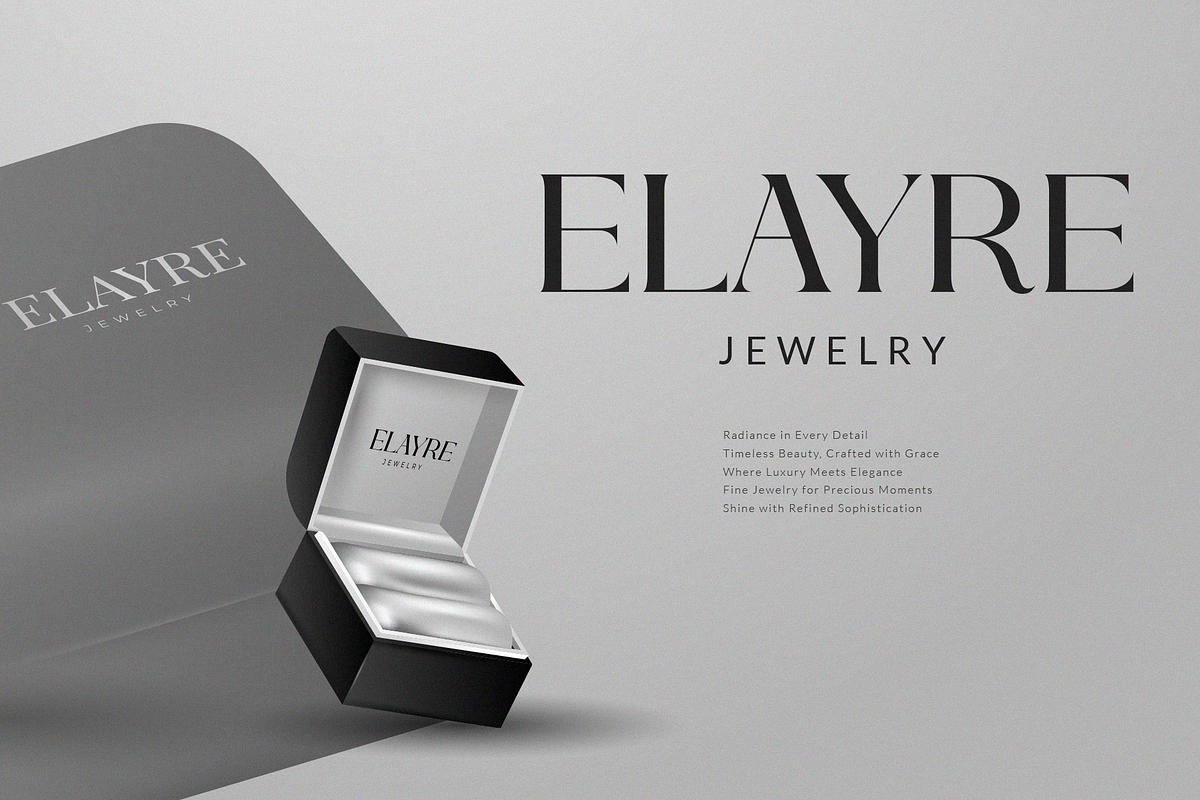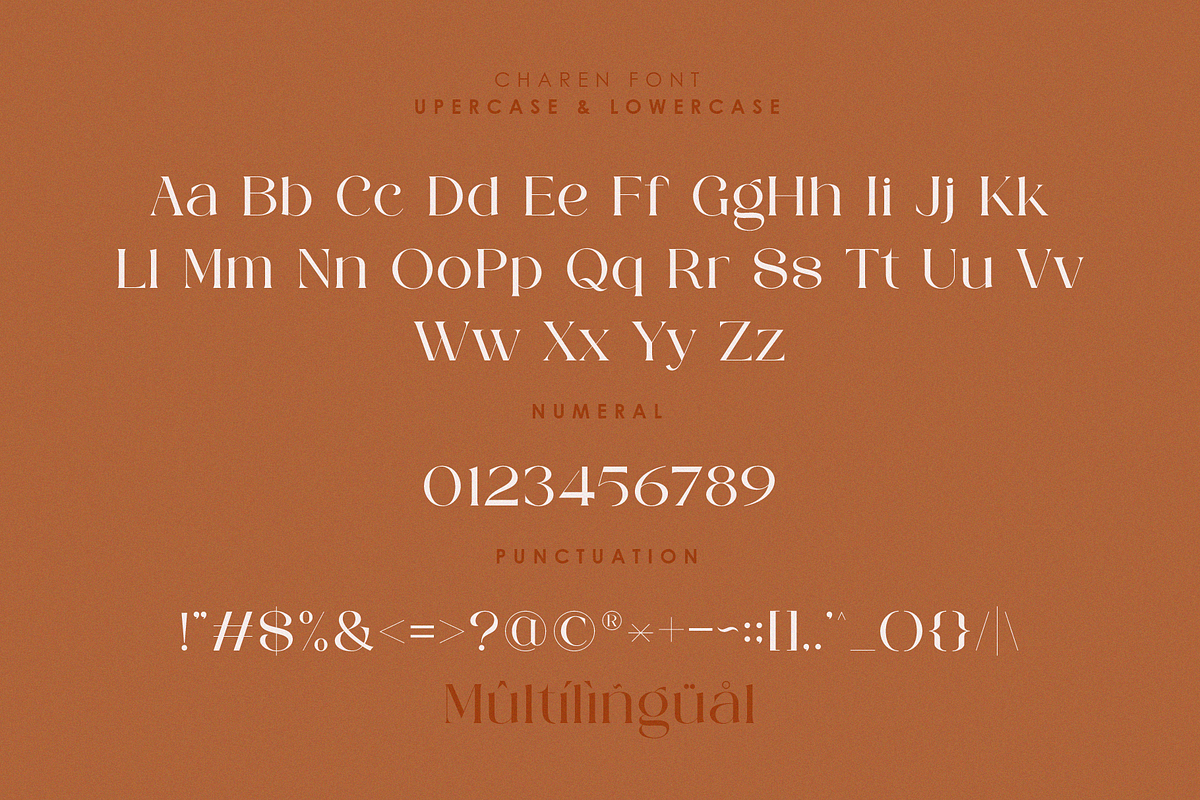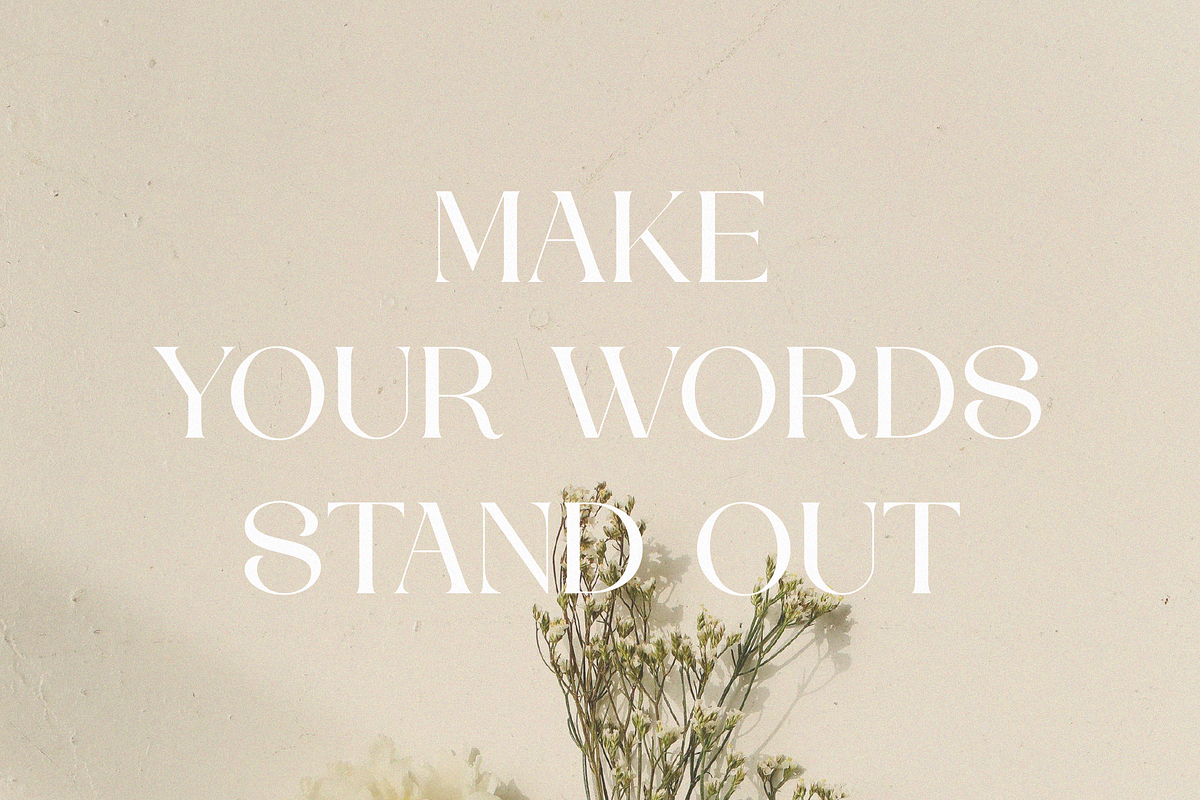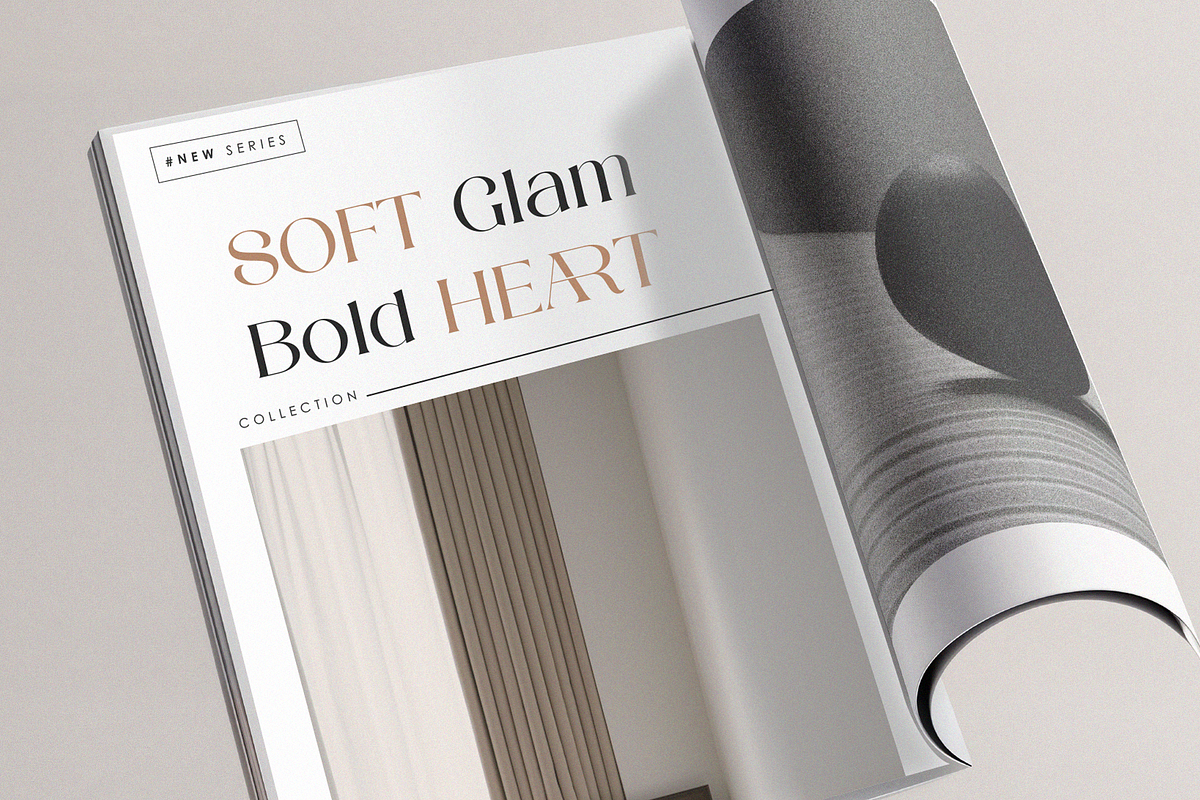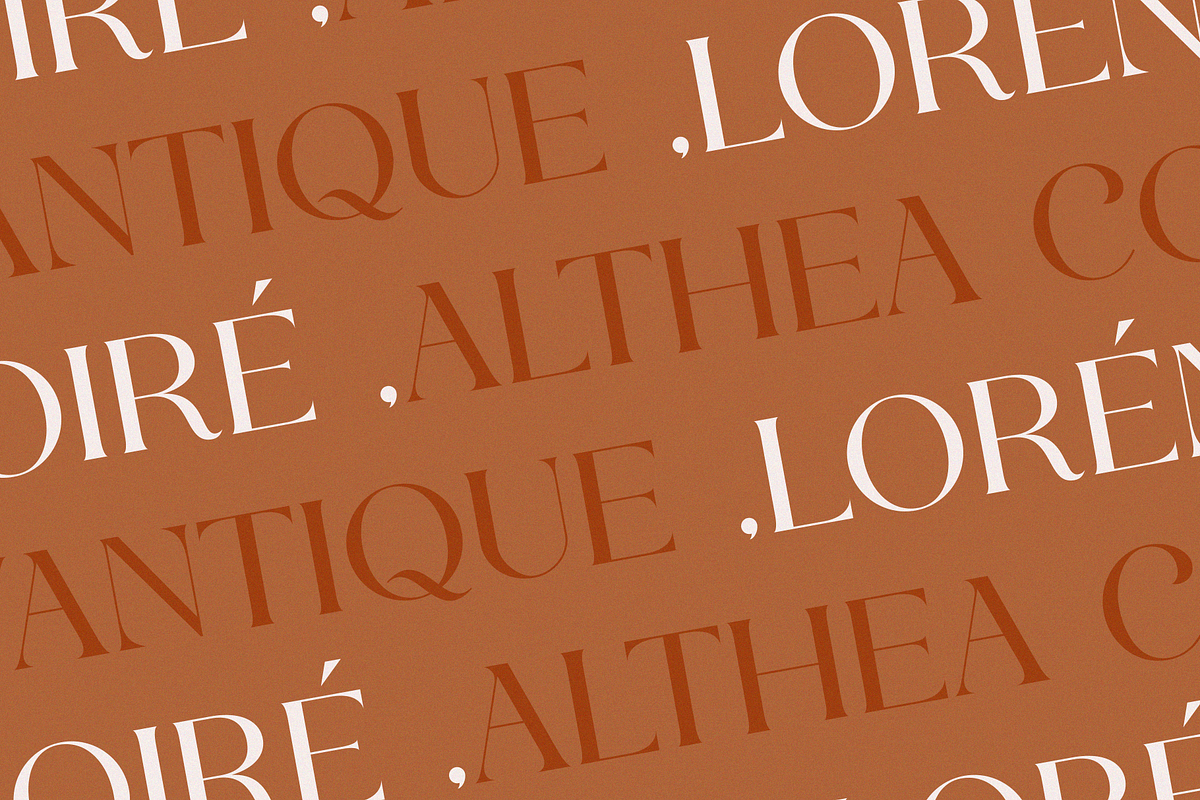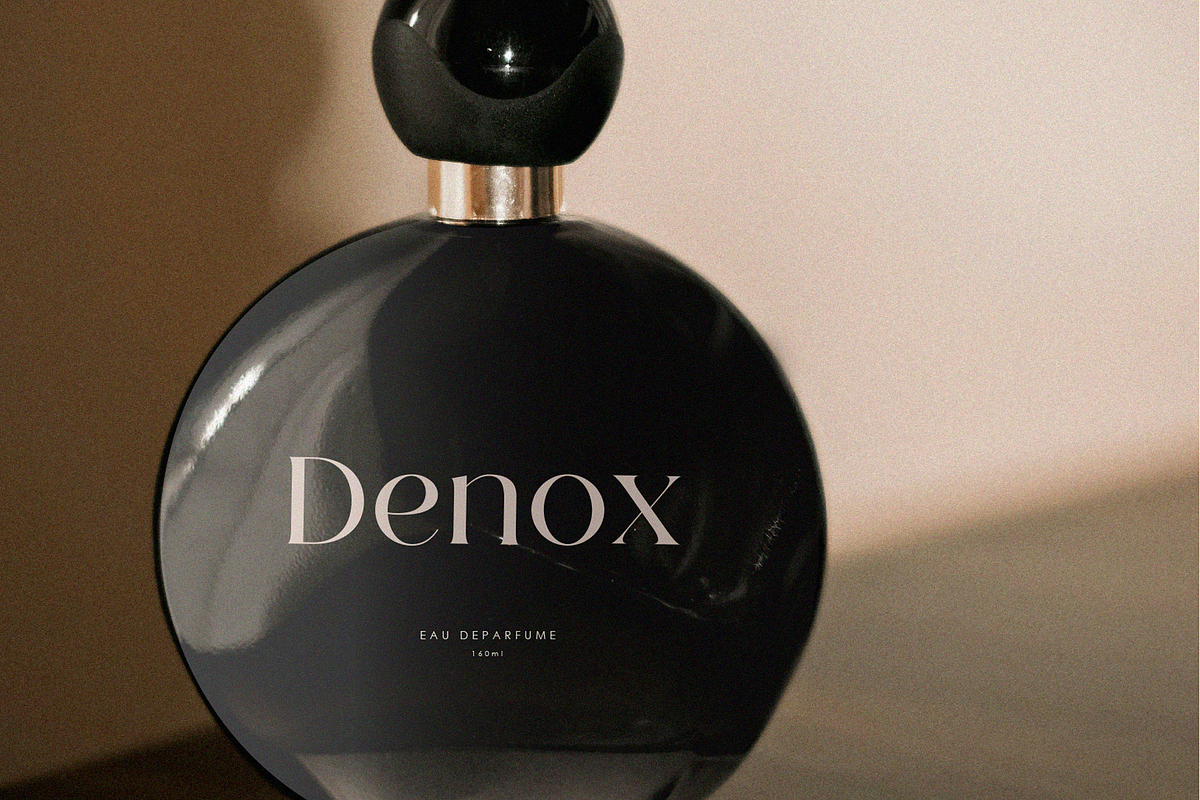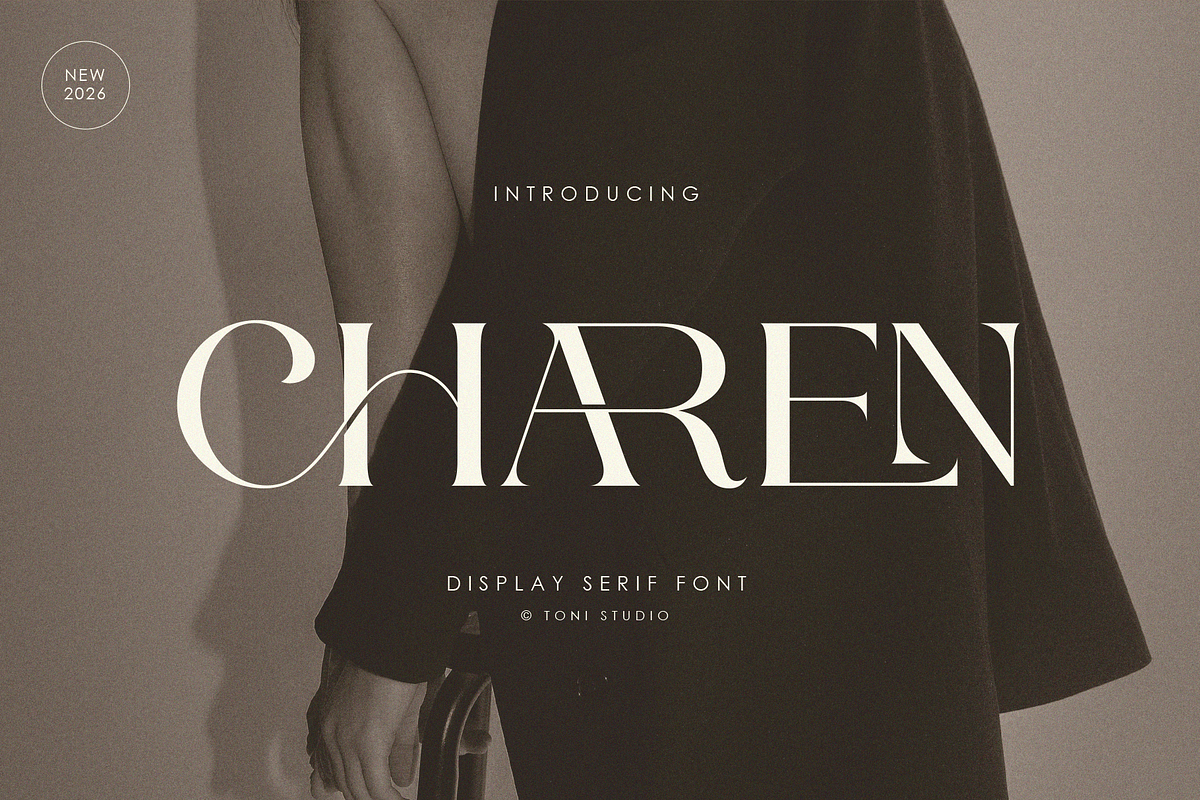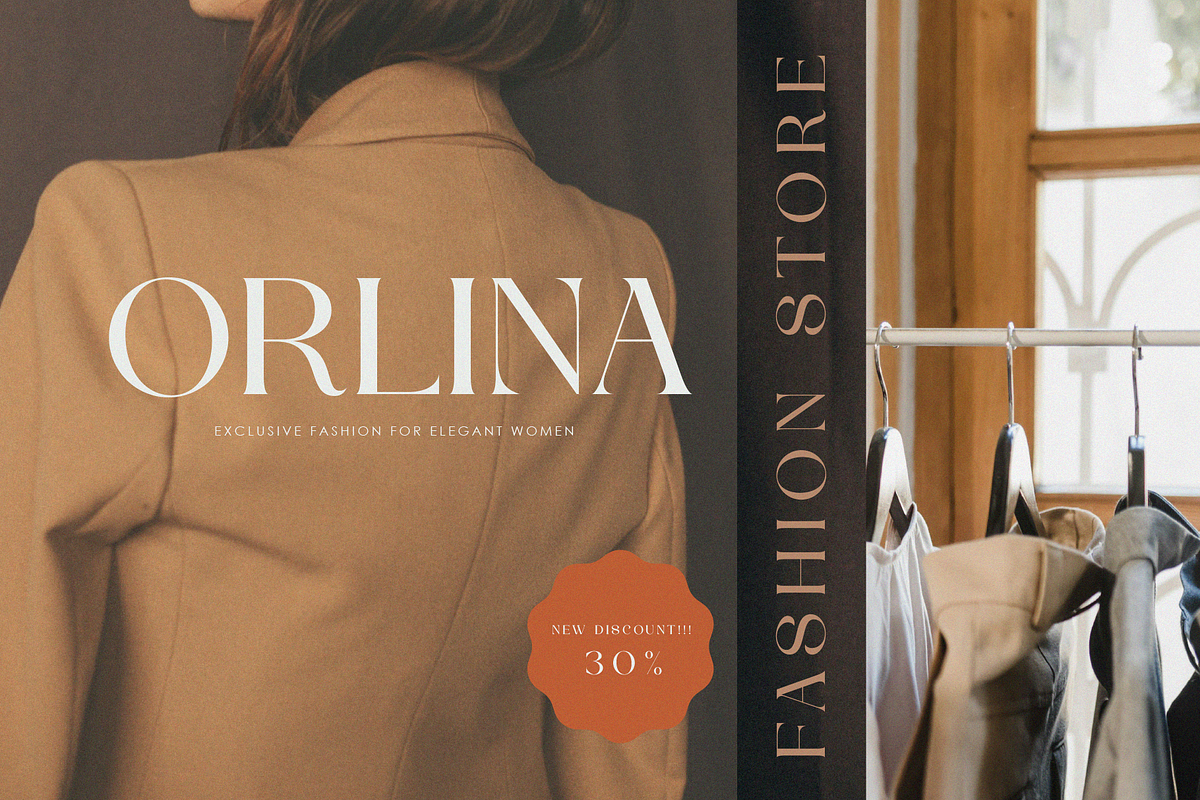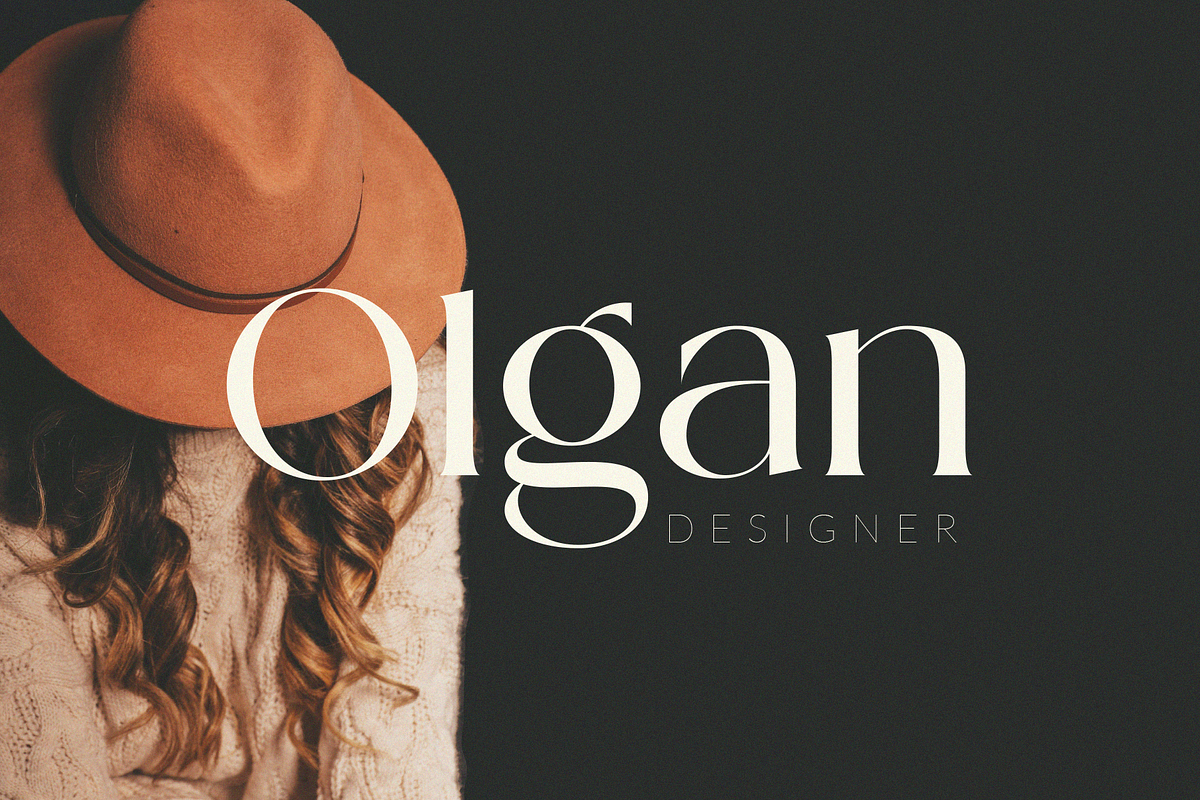
CHAREN || a modern display serif
CHAREN is a modern display serif font designed to express elegance, confidence, and timeless luxury. With high-contrast strokes, refined curves, and stylish ligatures, CHAREN brings a premium editorial feel to any visual identity.
Perfectly crafted for logos, branding, fashion editorials, luxury packaging, magazine headlines, and high-end designs, this font balances classic serif sophistication with a contemporary aesthetic.
CHAREN stands out beautifully in minimal layouts, offering a strong yet graceful presence that elevates modern brands and creative projects.